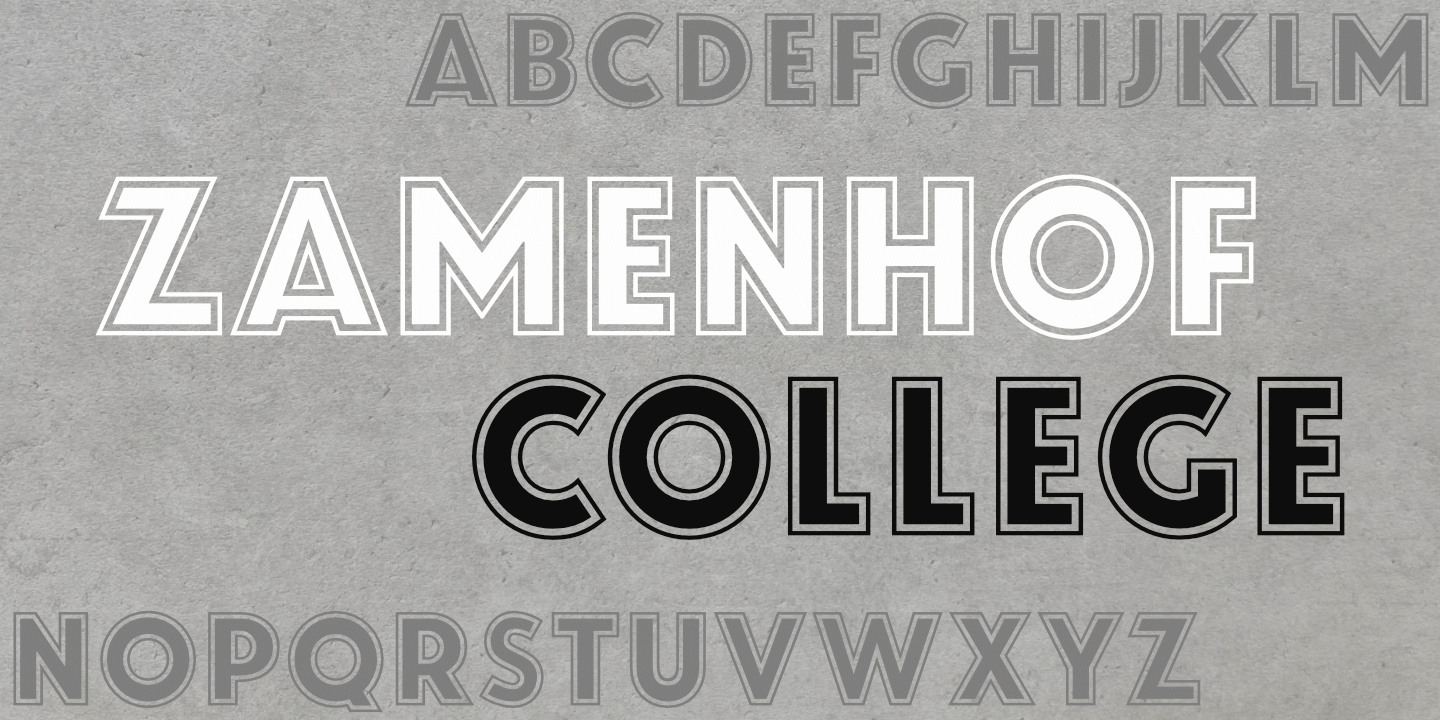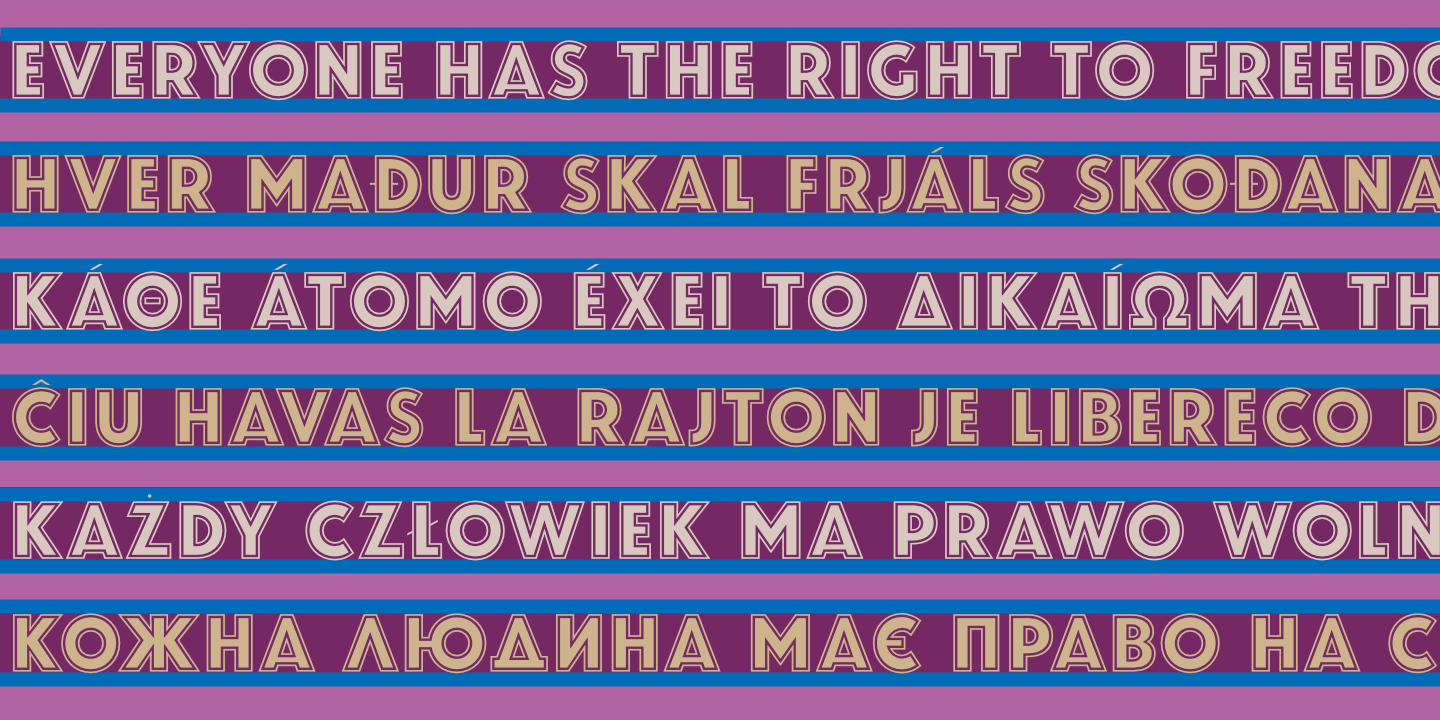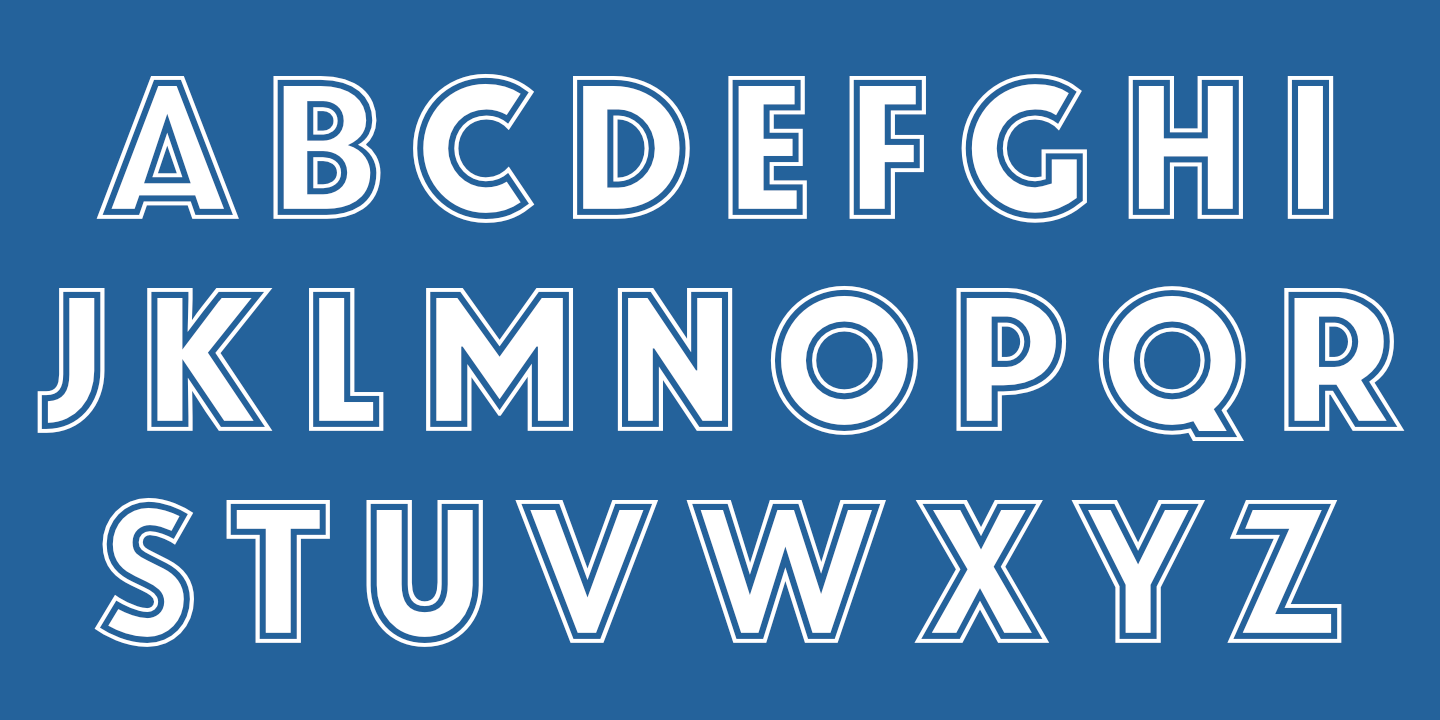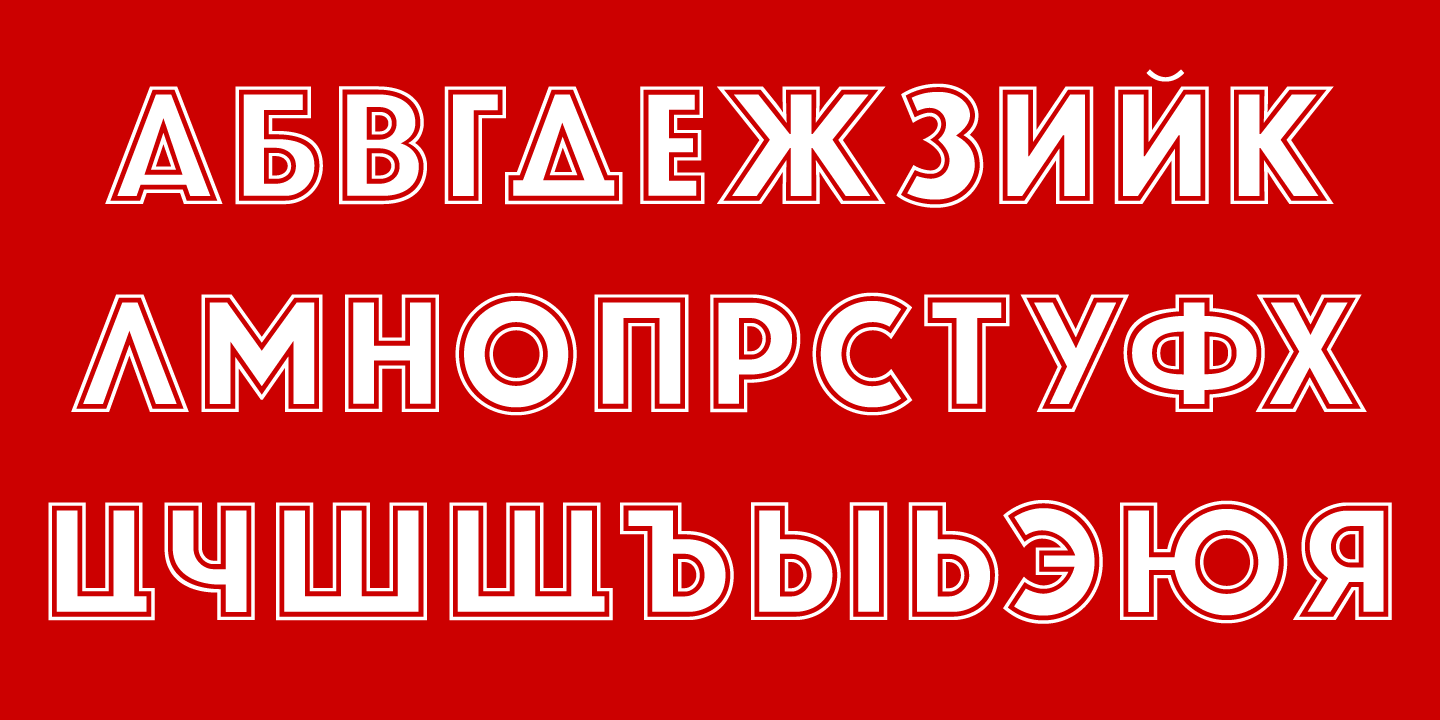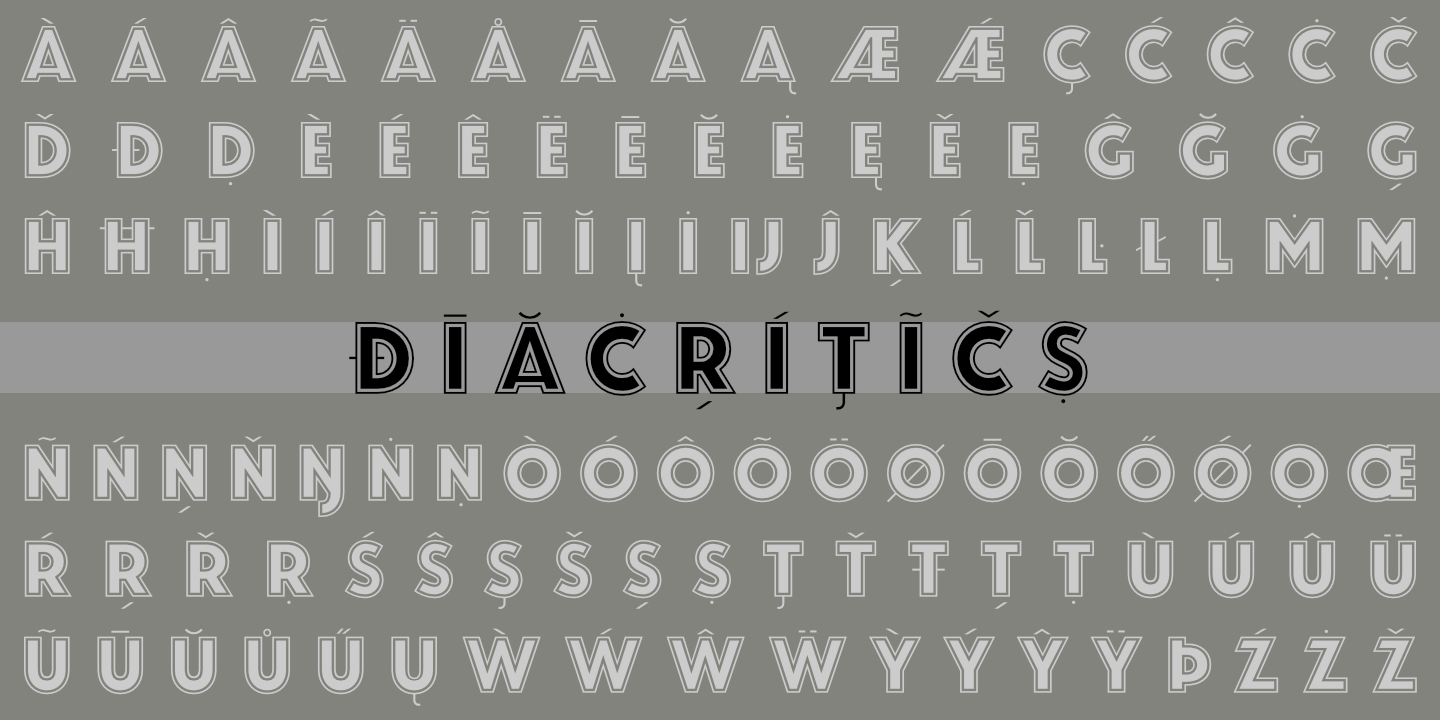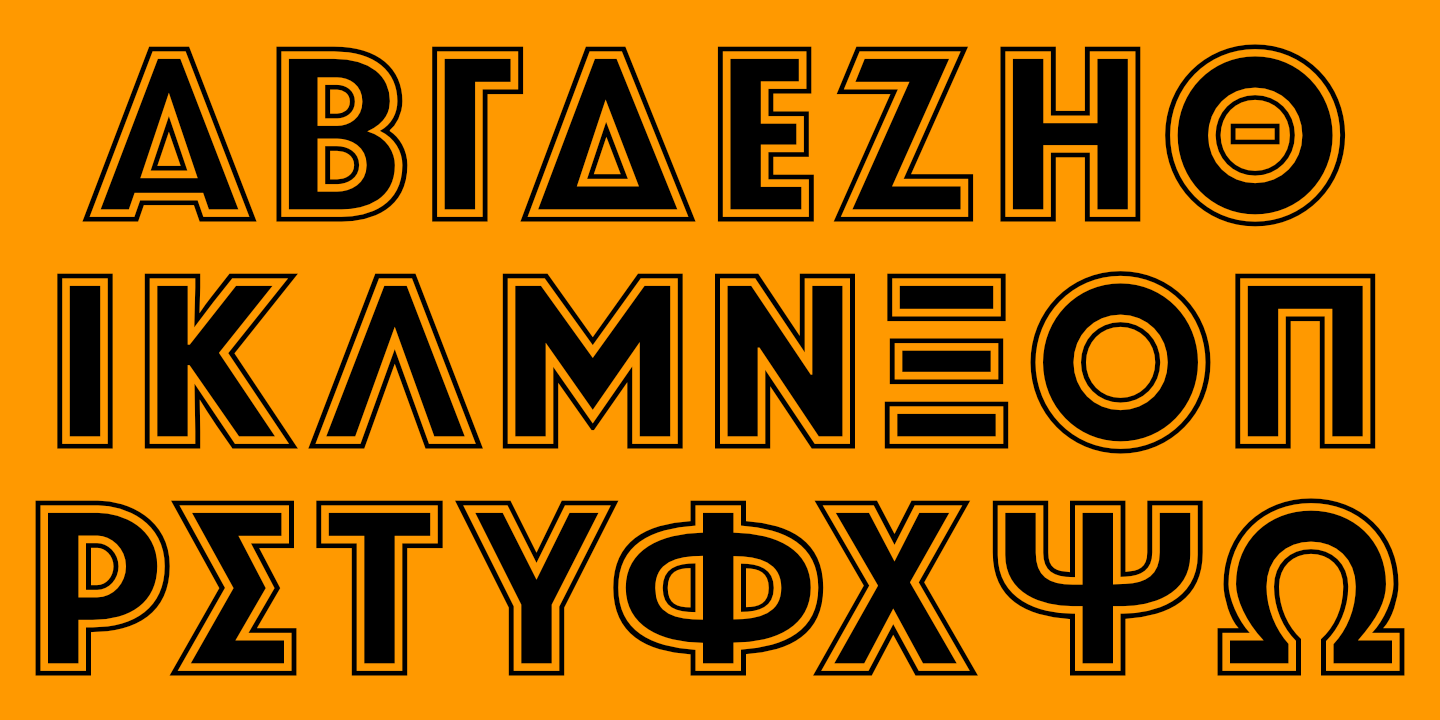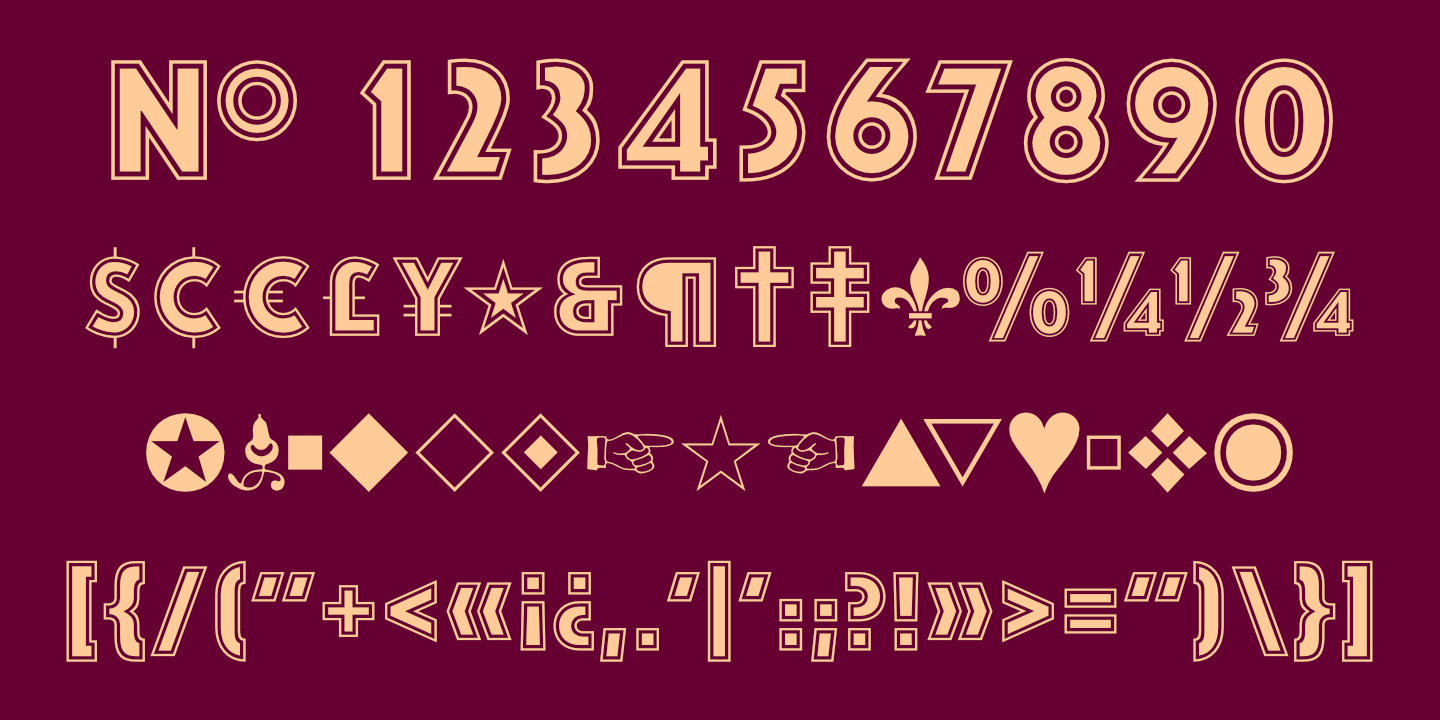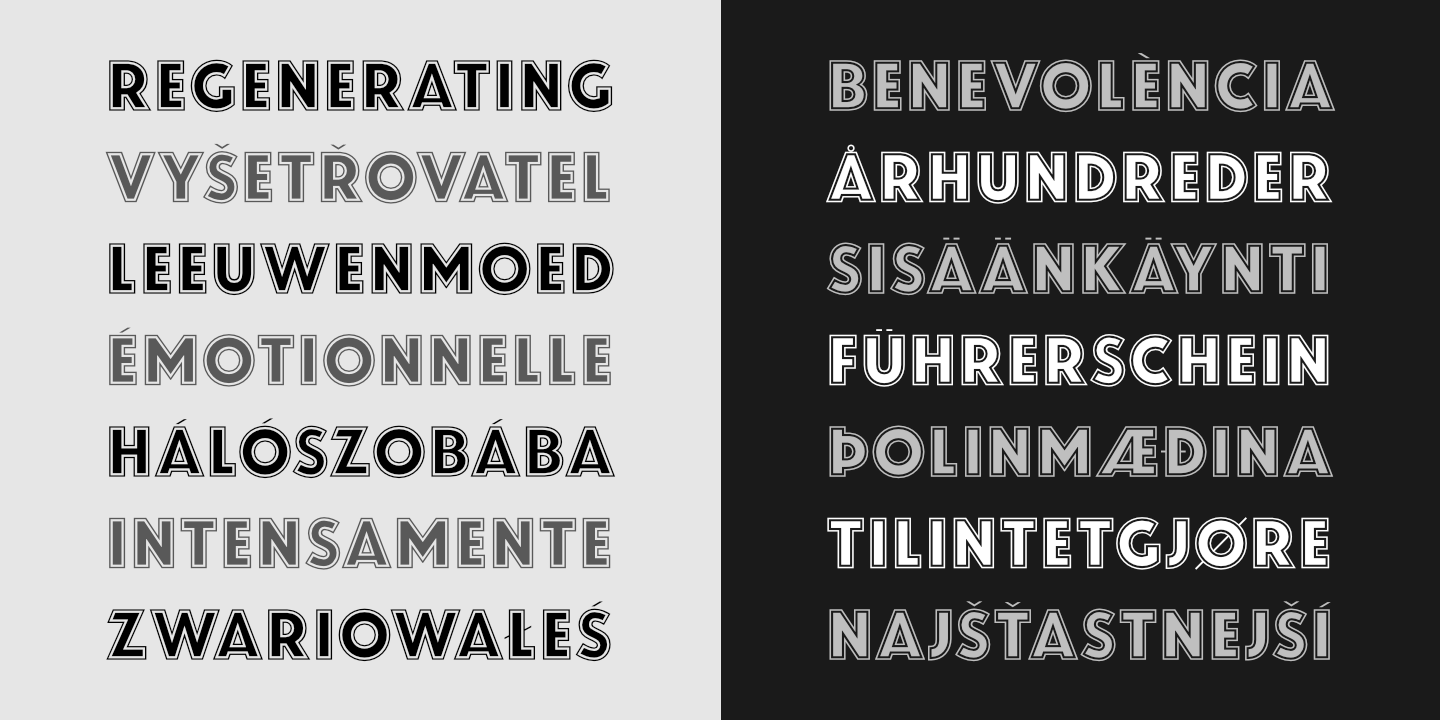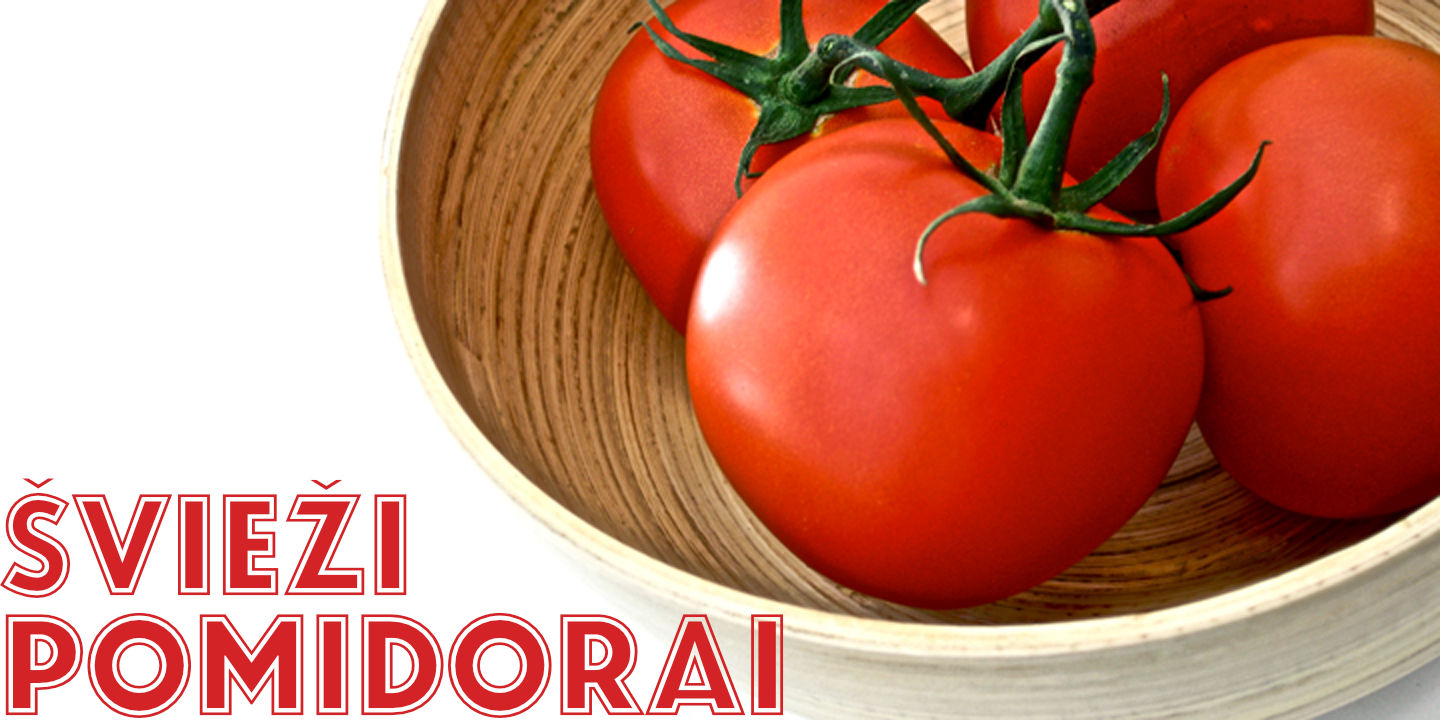
Zamenhof College supports most European languages. See Glyphs for details.
Zamenhof College supports most languages that use the Cyrillic alphabet. See Glyphs for details.
Zamenhof College supports modern (monotonic) Greek. See Glyphs for details.
Zamenhof College: Numerals, basic punctuation, currency symbols, and a sampling of ornaments.
Zamenhof College supports most languages that use the Latin or Cyrillic alphabet, as well as modern Greek.
Stacked Text
Notice that light text on a dark background appears slightly heavier than dark text on a light background. blank
Diacritics
Tomatoes
Examples (above and below) of layering various styles of Zamenhof; the possibilities are endless.